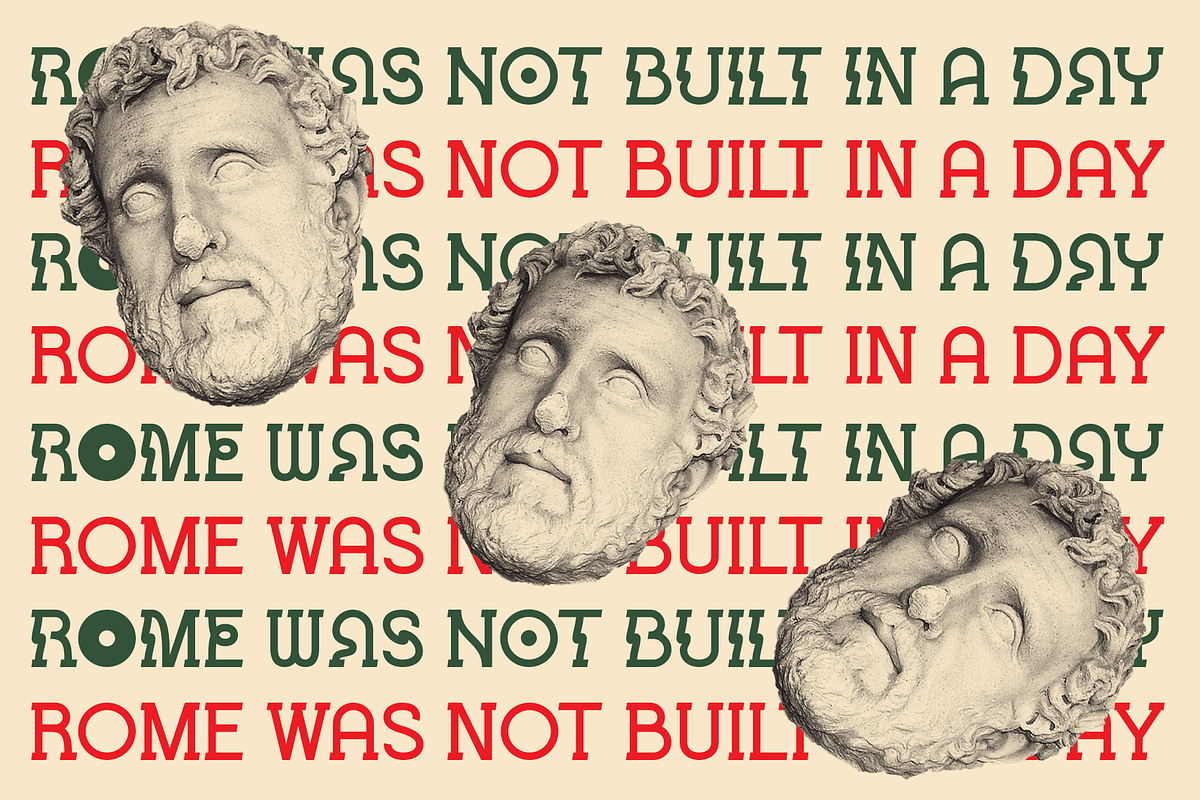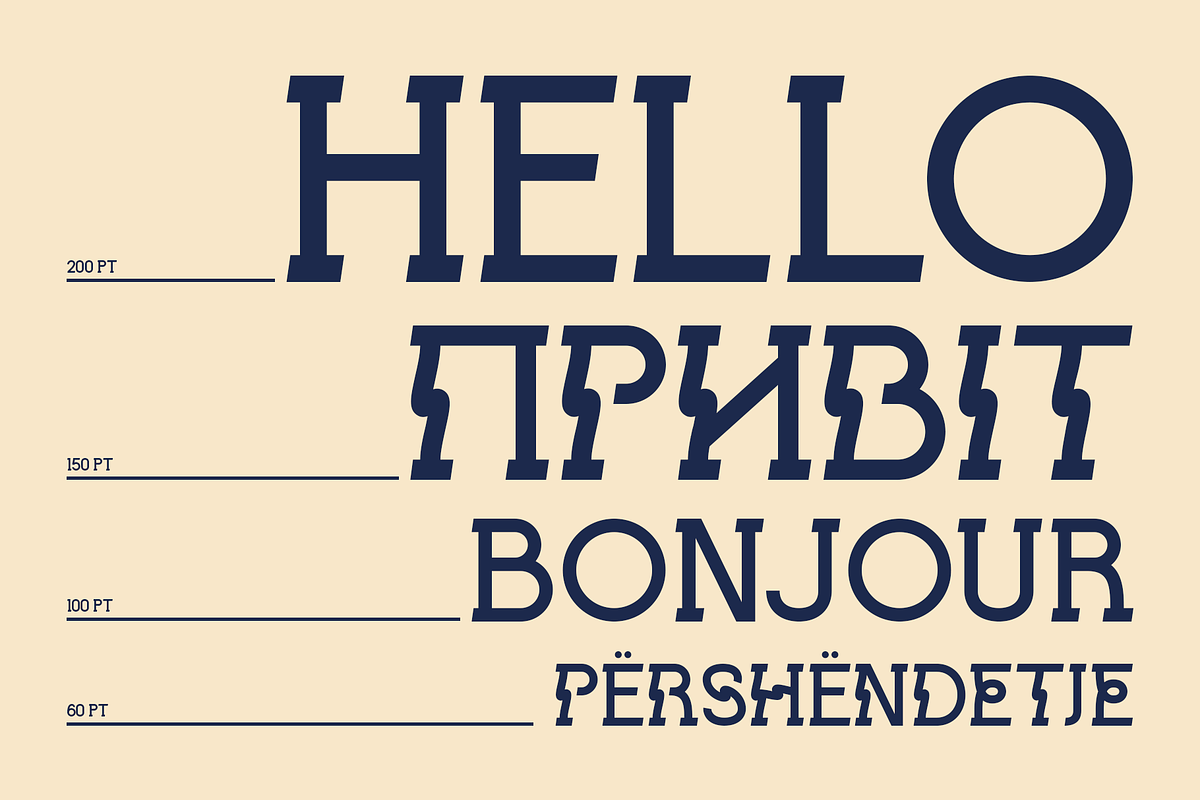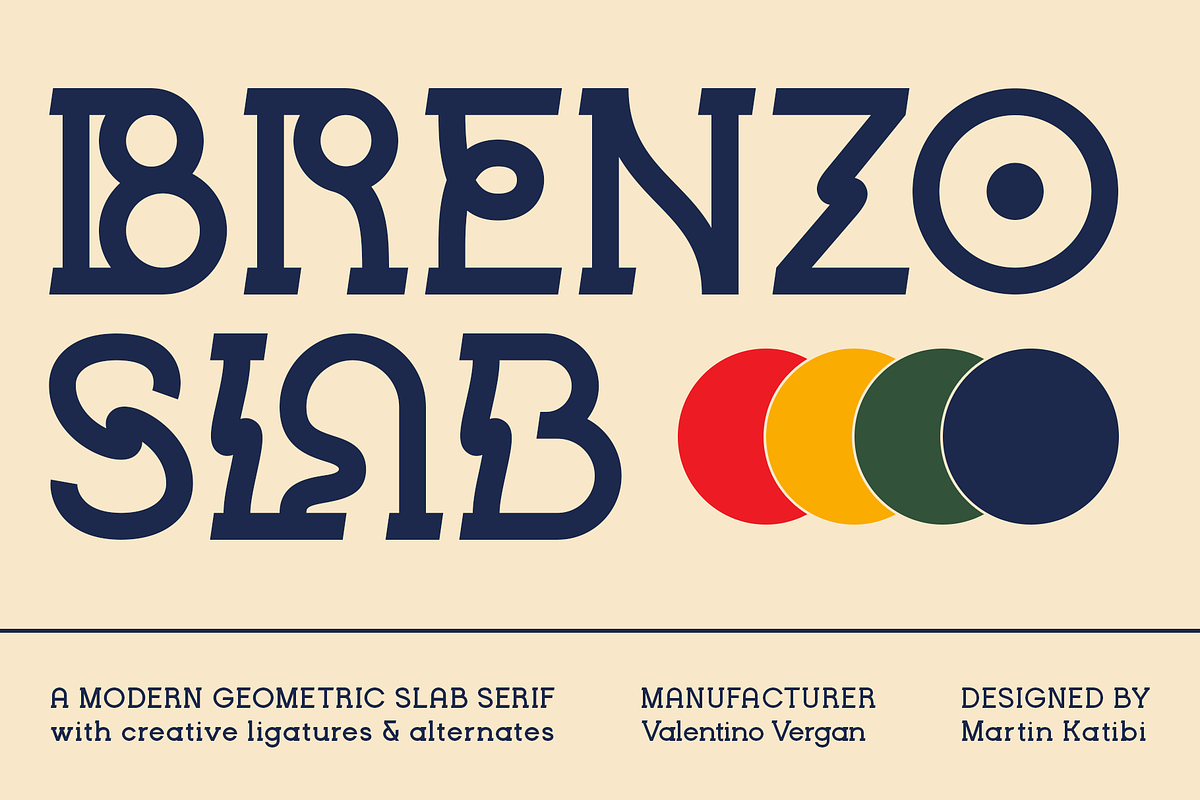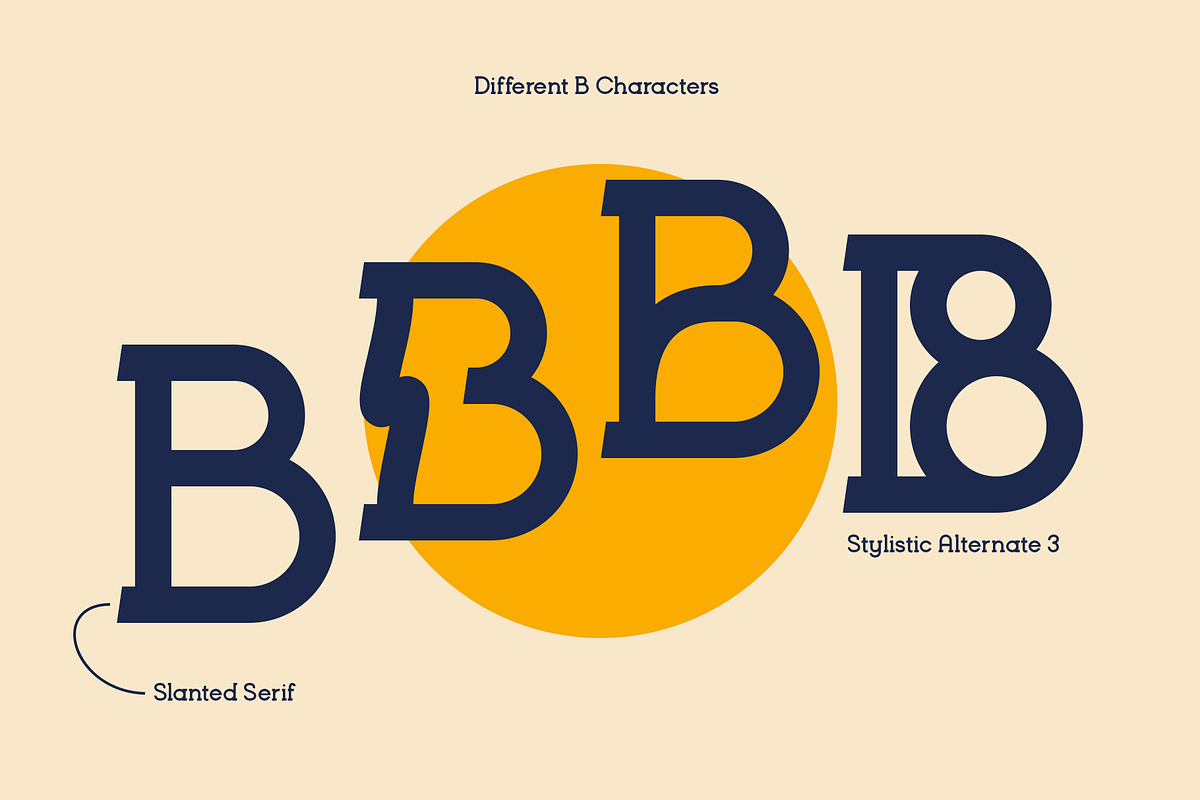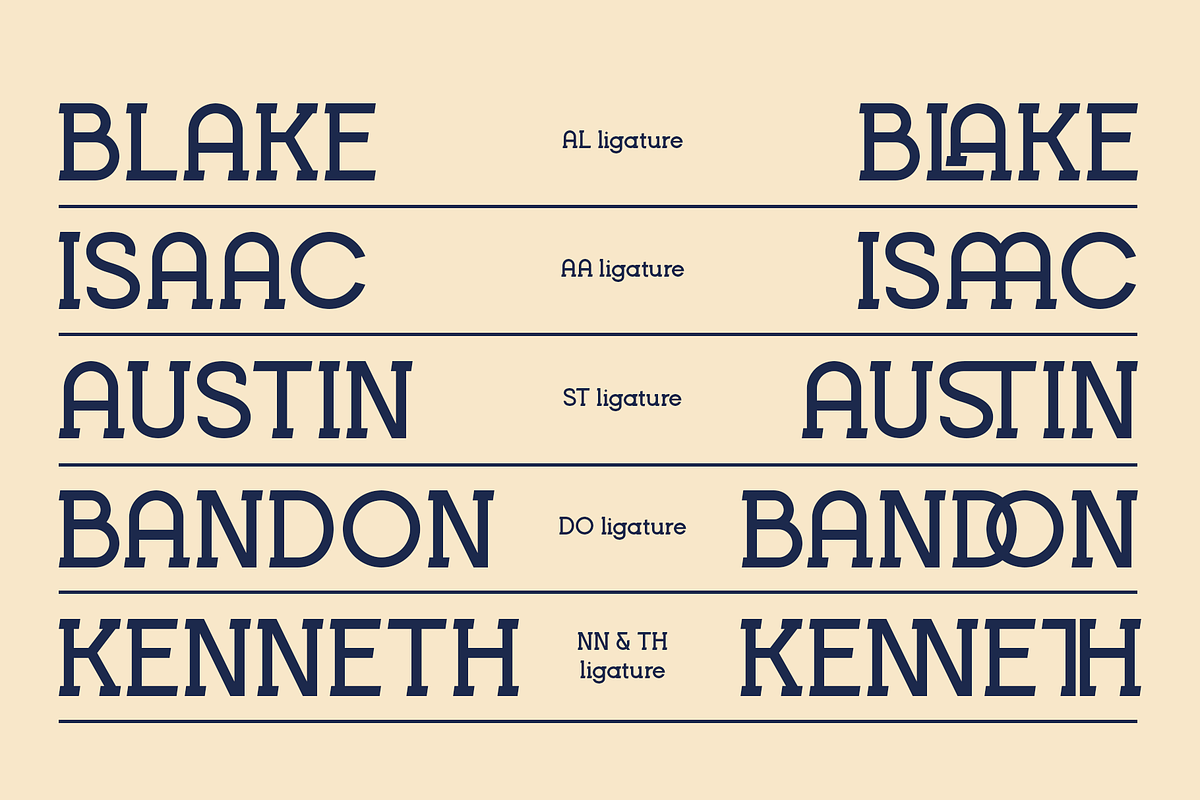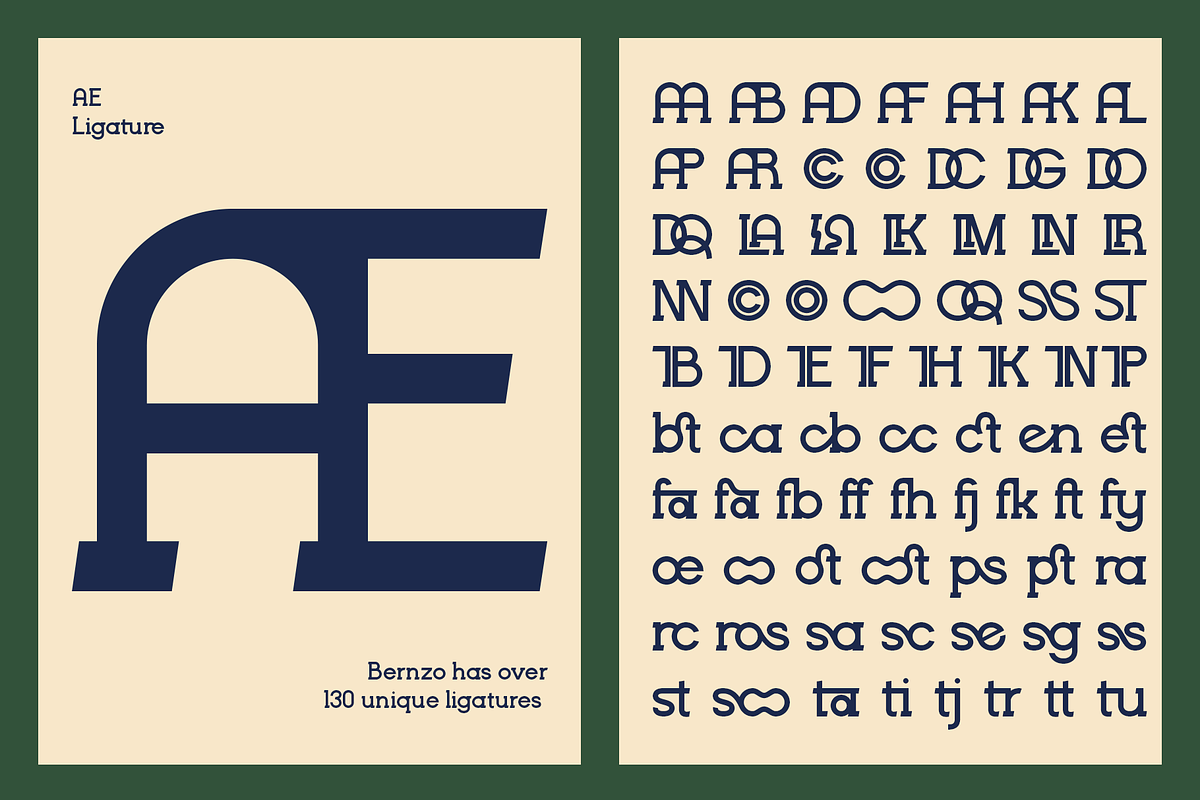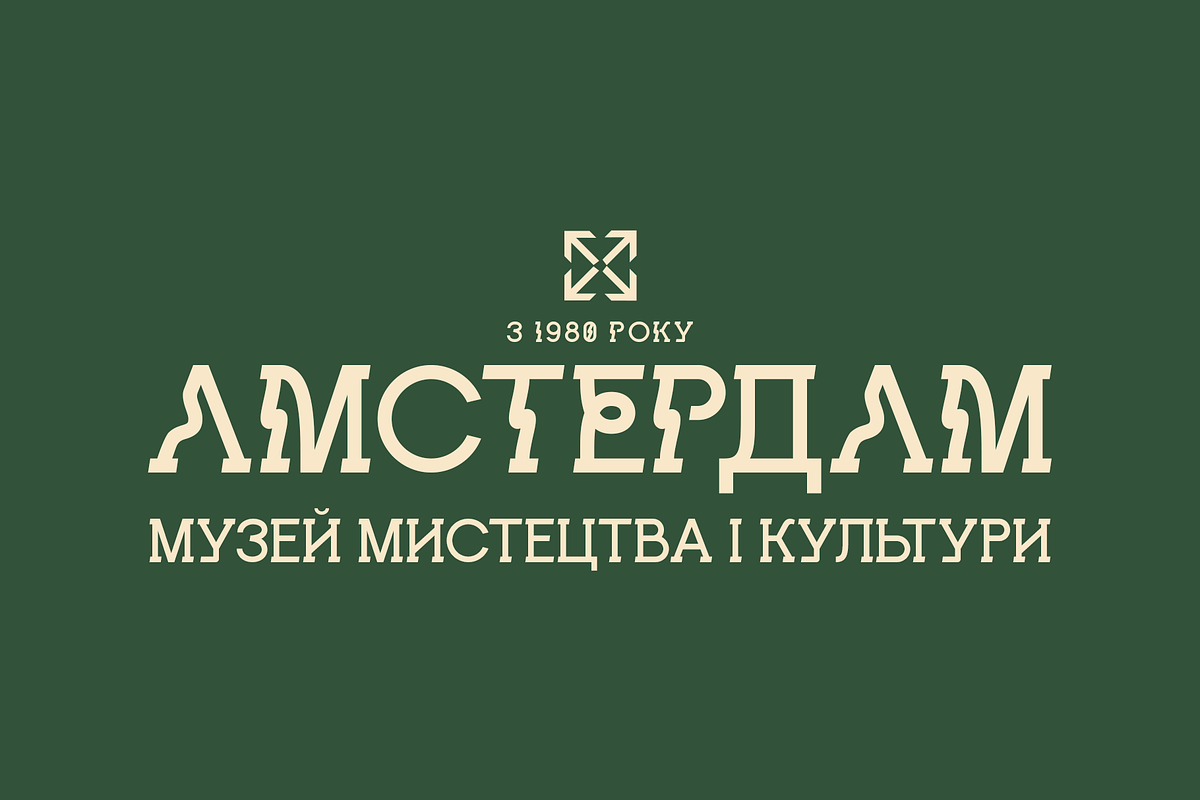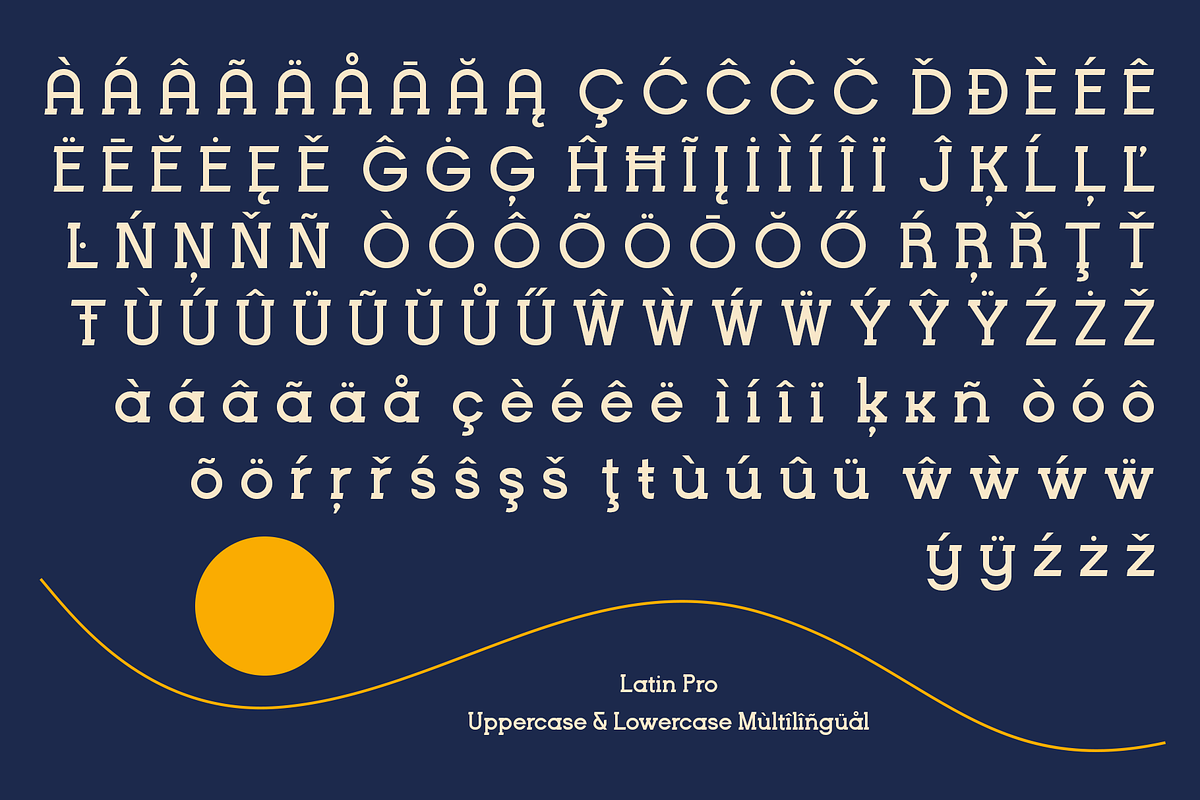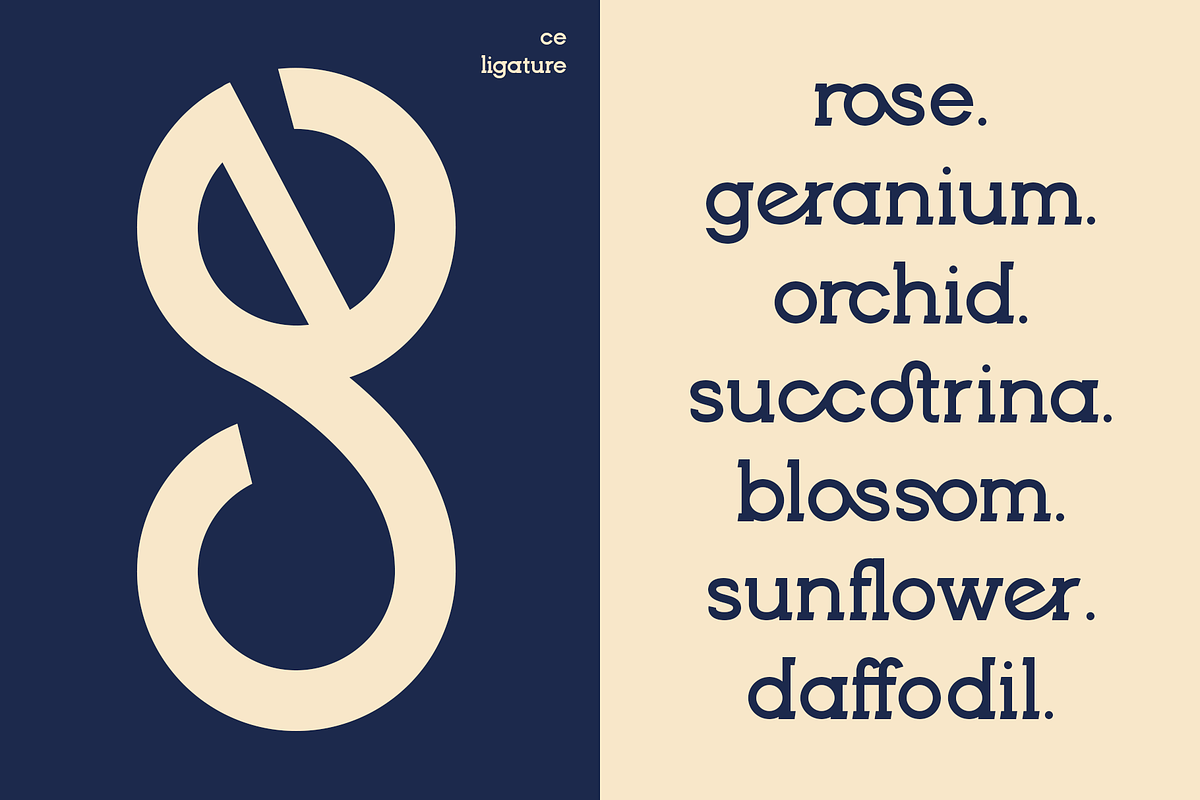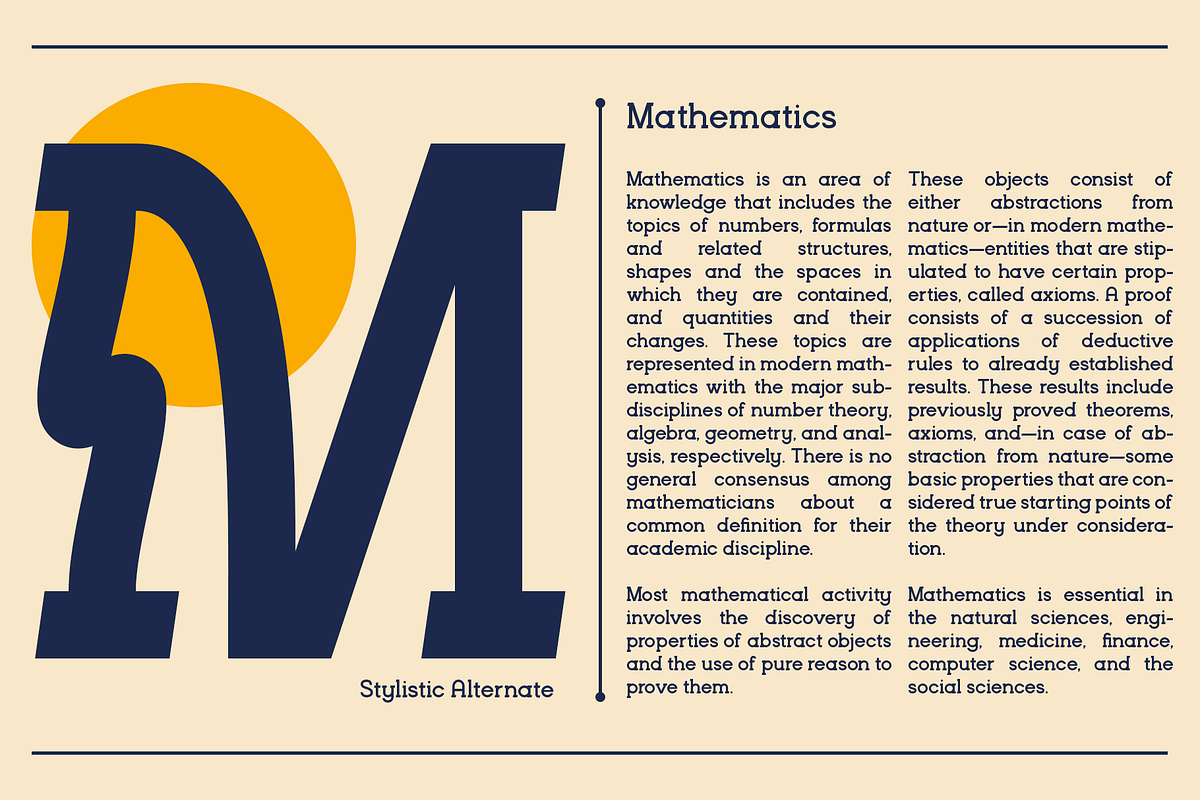
Brenzo - Slab Serif
Brenzo is a modern geometric slab serif, it comes with unique alternates and creative ligatures. The main idea behind Brenzo slab was to add a creative twist to the standard slab serif font design, to achieve this we decided to slanting the serif and making the shapes more geometrical. Brenzo Slab is an ideal font for graphic designs and advertising agencies, who are looking to create beautiful logos and designs. Brenzo Slab was created to look great in both large and small type settings, this makes it perfect for posters and editorial layouts. With its great multilingual support, which includes Latin pro and Cyrillic characters, Brenzo slab can be used in a large number of different languages.
- Uppercase and lowercase letters.
- Numbers.
- Punctuations.
- Ligatures.
- Multilingual Symbols (Latin pro and Cyrillic).